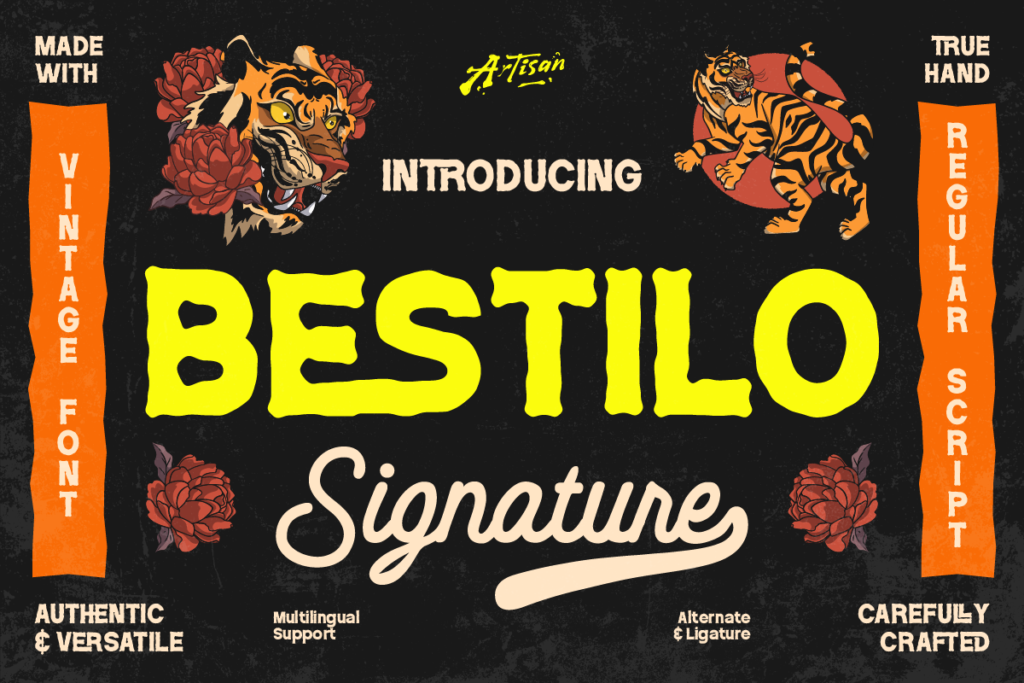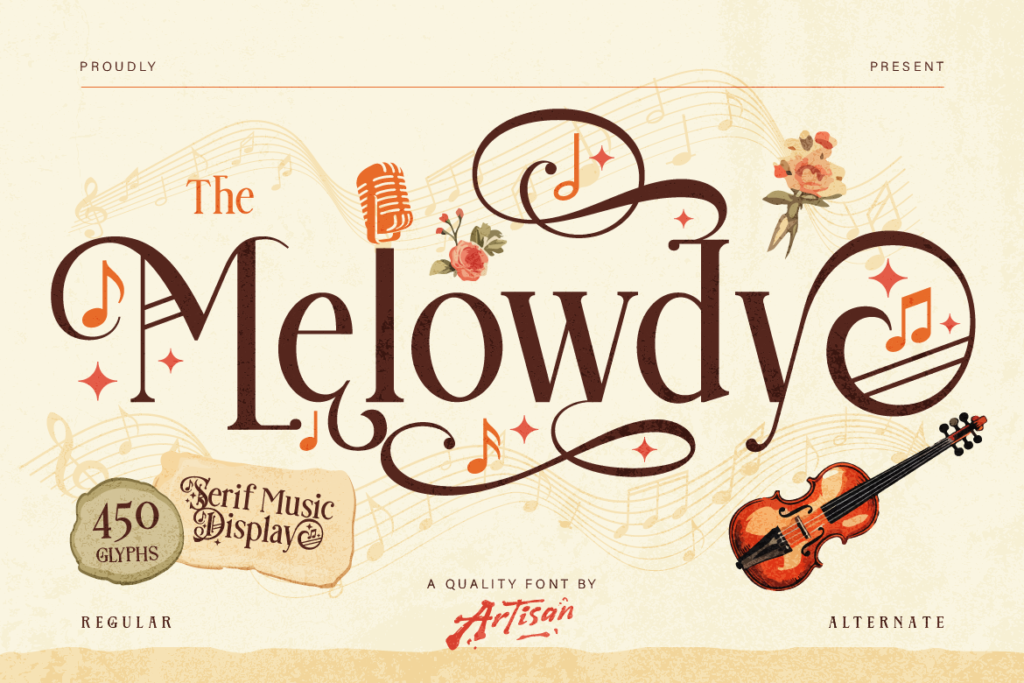
3 Elegant Signature & Handwritten Fonts from Artisan Font for a Personal Touch
There’s something special about a font that feels handwritten, it adds warmth, authenticity, and a personal touch that clean, structured typefaces just can’t replicate. Signature and handwritten-style fonts are perfect for branding that wants to feel personal, crafted, and one-of-a-kind.
Here are 3 fonts from Artisan Font that bring that authentic, hand-touched feel to your design.
1. Bestilo
vintage elegant duo font
Bestilo is a signature-style font that feels authentic and versatile, like an elegant, confident hand-signed autograph. It brings a sense of trust and personality wherever it’s used.
Great for: logo signatures, luxury branding, and personal brand identities.
2. Melowdy
serif music display font
Melowdy is an elegant vintage serif with bold swash ornaments and a rich, musical character. With hundreds of glyphs to work with, it offers plenty of flexibility for adding decorative, handcrafted flourishes to your design.
Great for: invitation design, editorial titles, and elegant packaging with a vintage touch.
3. Seratonin
pixel script font
Seratonin blends a pixel script quality with an inkbleed texture, giving it a dreamy, hand-touched feel that’s a little different from a typical script font. It’s soft, artistic, and full of personality.
Great for: dreamy, artistic branding, editorial spreads, and expressive social media graphics.
Add a Personal Touch
Whether you want a confident signature look or a soft, artistic script, these 3 fonts bring authentic, handcrafted warmth to your next project.